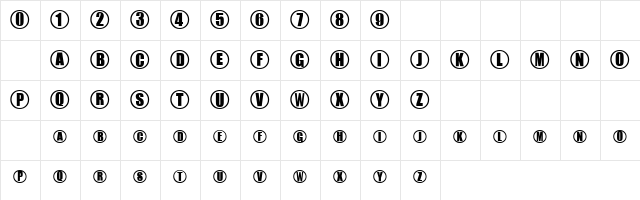
TM Sprint Veloche Normal
Design Context for TM Sprint Veloche Typeface
TM Sprint Veloche offers clean, dependable letterforms without strong stylistic allegiance, making it a practical choice for designers who need flexibility.
Pro Tip: Use TM Sprint Veloche in both headline and body roles to test its range before committing to a single application.